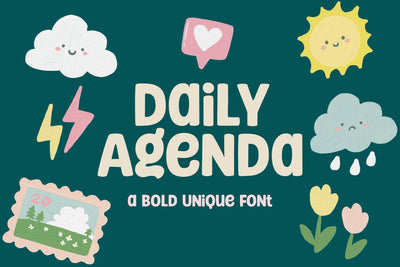
Daily Agenda - a Bold Unique Font
Daily Agenda is a unique bold font with a quirky and chunky feel. This font is perfect for use as headlines, crafting, logos, kids projects, school projects, and all designs that require a unique touch to make the design extraordinary.